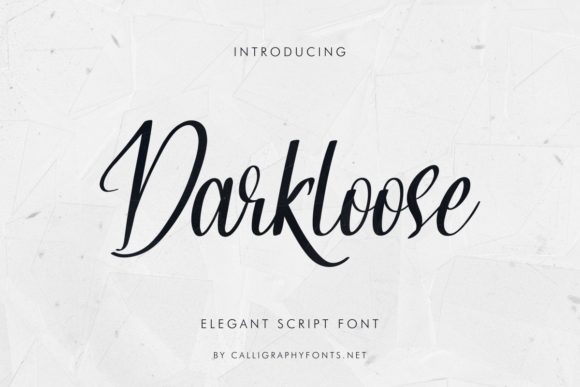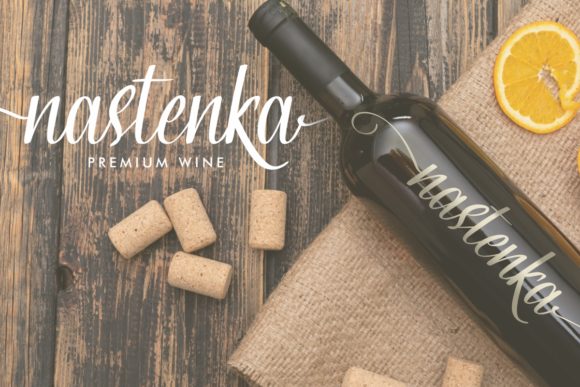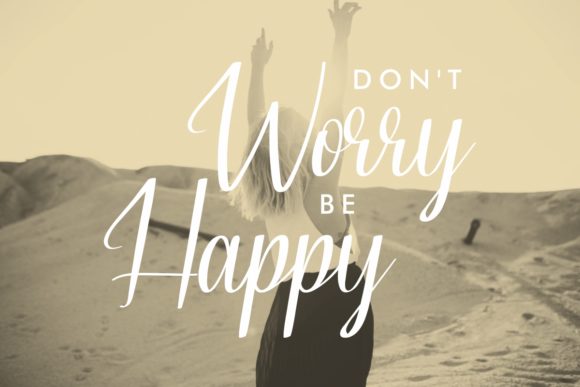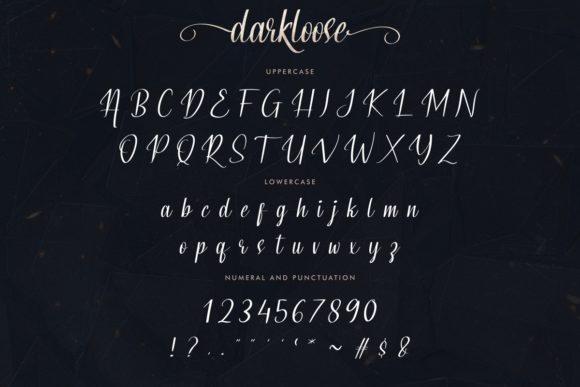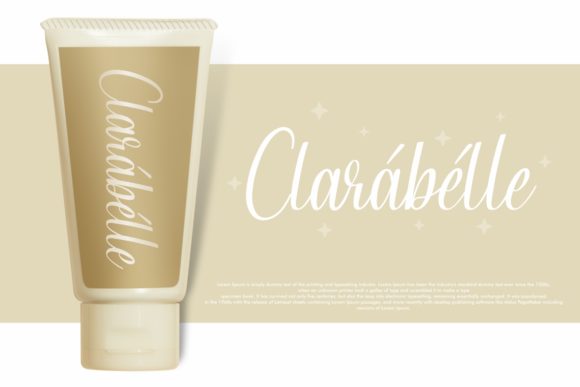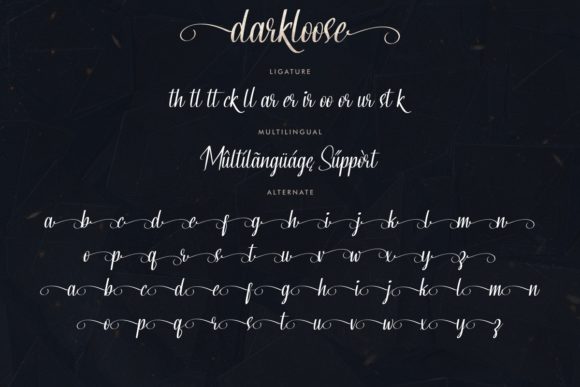
Introducing Darkloose Font: Elevate Your Designs with Elegance and Sophistication
Are you tired of using the same old fonts in your designs? Look no further than Darkloose Font, a stunning brush pen font that exudes elegance, luxury, and glamour. With its incredibly versatile style, Darkloose is perfect for designers and crafters looking to add a touch of sophistication to their work.
What Makes Darkloose Font So Special?
Darkloose Font is a modern and sophisticated brush pen font that is sure to capture your heart. Its unique and versatile style makes it perfect for a wide range of design projects, from wedding invitations and branding materials to social media graphics and more. Whether you’re a professional designer or a crafter looking to add a personal touch to your work, Darkloose is the perfect choice.
One of the standout features of Darkloose Font is its PUA (Private Use Area) encoding. This means that you can access all of the glyphs and swashes with ease, giving you complete creative control over your designs. With PUA encoding, you can effortlessly navigate the font’s extensive character set, including ligatures, alternates, and swashes, to create truly spectacular designs.
Darkloose Font offers endless design possibilities, making it perfect for a wide range of projects. Here are just a few ideas to get you started:
• Wedding invitations and stationery: Add a touch of elegance and sophistication to your wedding designs with Darkloose’s luxurious script.
• Branding and packaging: Elevate your brand with Darkloose’s modern and sophisticated style, perfect for logos, business cards, and product packaging.
• Social media graphics: Make your social media graphics stand out with Darkloose’s unique and eye-catching script.
• Digital art and illustration: Use Darkloose to add a touch of elegance and sophistication to your digital art and illustrations.
Why Choose Darkloose Font?
With so many fonts on the market, why choose Darkloose? Here are just a few reasons:
• Unique and versatile style: Darkloose’s modern and sophisticated script is unlike any other font on the market.
• Easy to use: With PUA encoding, accessing glyphs and swashes is a breeze.
• High-quality design: Darkloose is designed with high-quality craftsmanship, ensuring a professional finish every time.
• Multilingual support: Darkloose supports multiple languages, making it perfect for designers and crafters around the world.
Get Ready to Fall in Love with Darkloose
If you’re looking for a font that will elevate your designs and add a touch of elegance and sophistication, look no further than Darkloose Font. With its incredibly versatile style and PUA encoding, Darkloose is the perfect choice for designers and crafters looking to create spectacular designs. So why wait? Fall in love with Darkloose today and take your designs to the next level!
In conclusion, Darkloose Font is a game-changer for designers and crafters looking to add a touch of elegance and sophistication to their work. With its unique and versatile style, PUA encoding, and endless design possibilities, Darkloose is the perfect choice for anyone looking to elevate their designs. So why wait? Get your hands on Darkloose Font today and start creating spectacular designs that will leave a lasting impression!